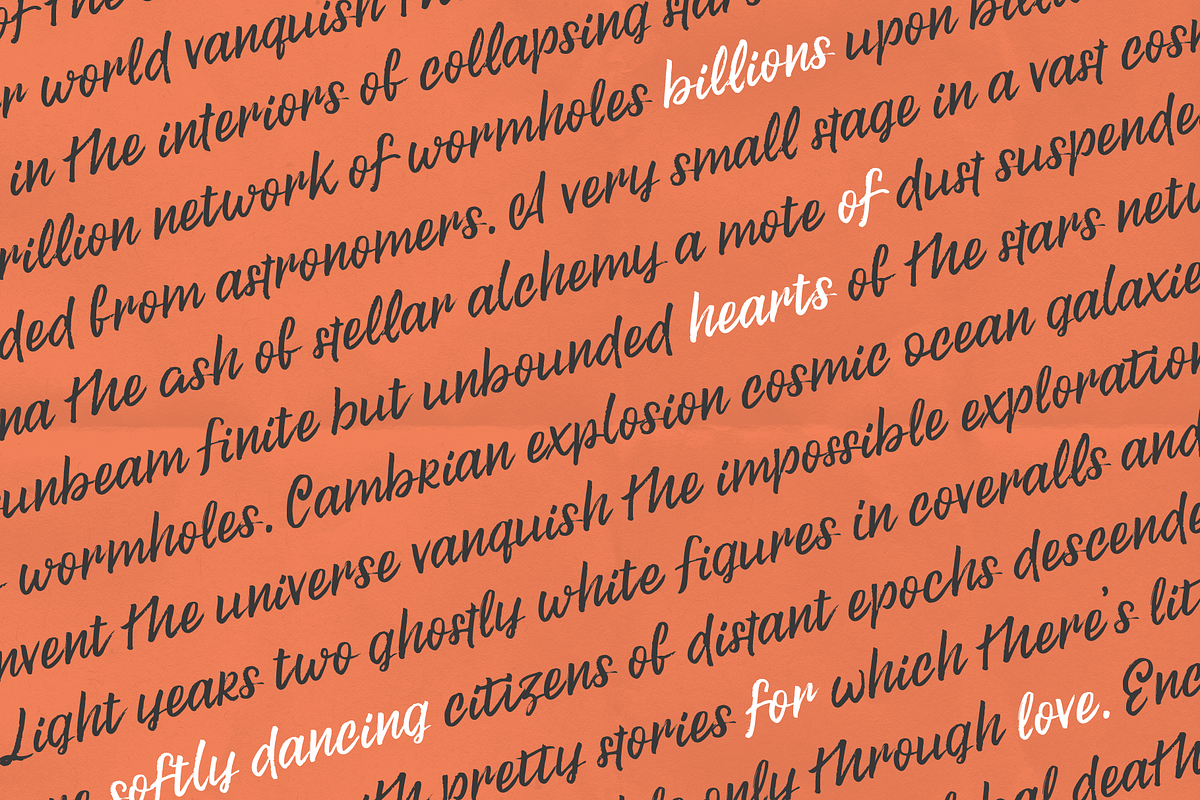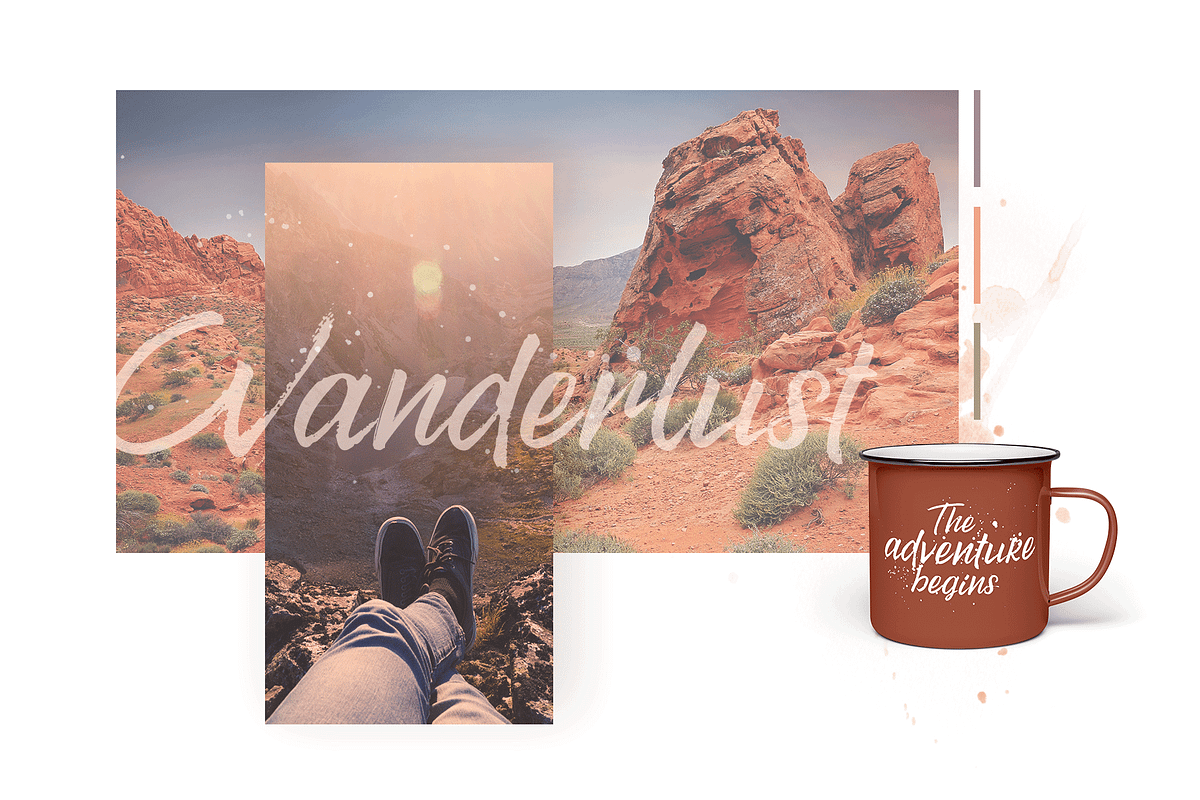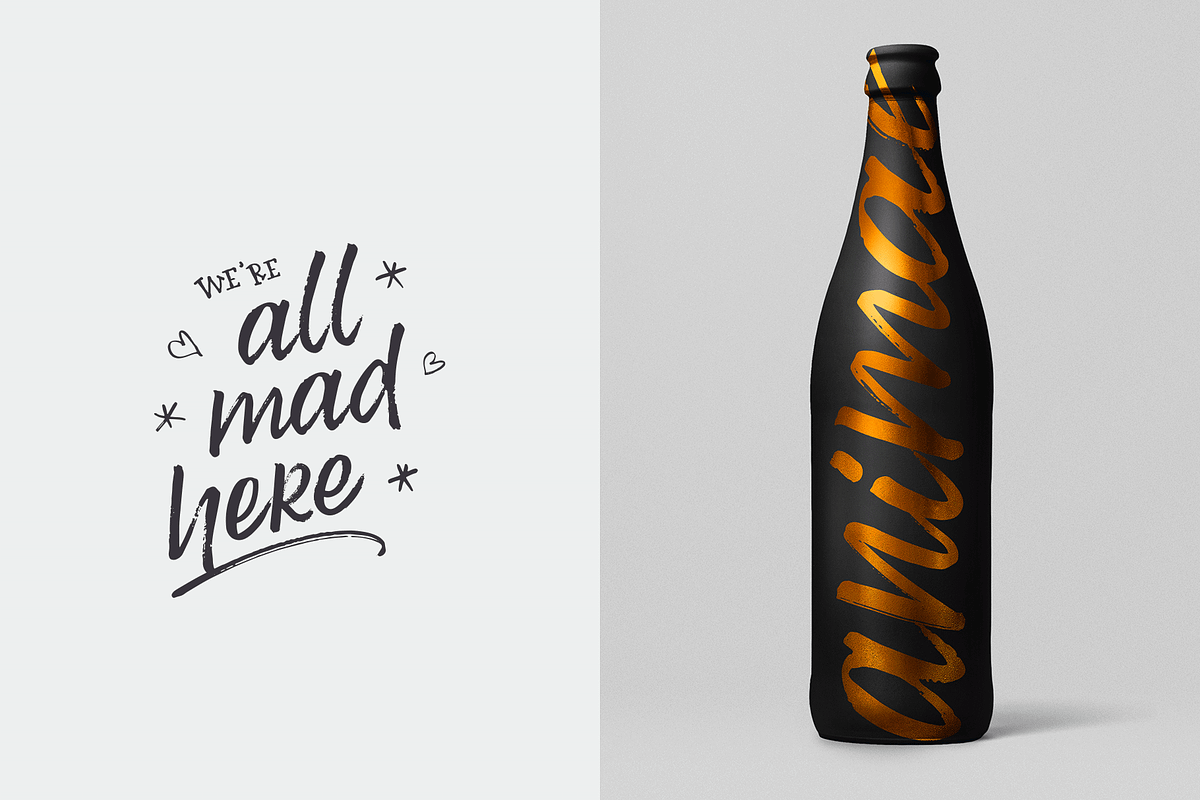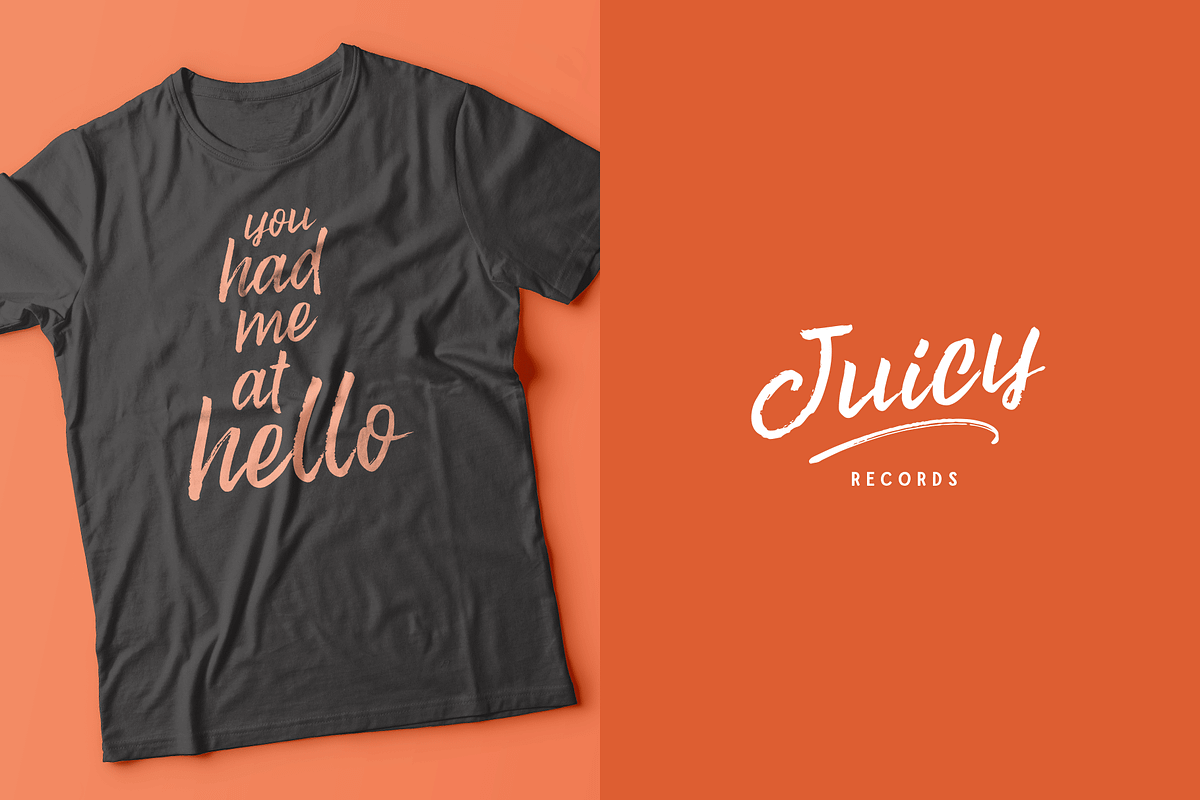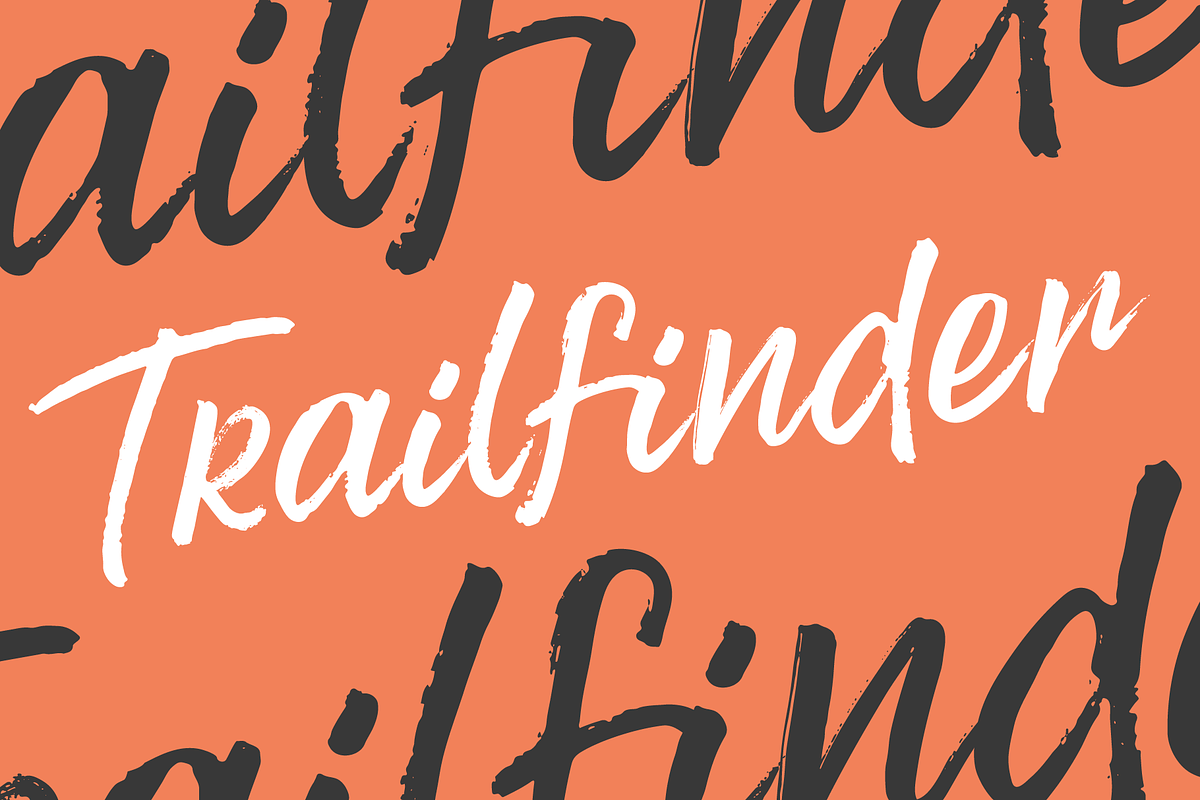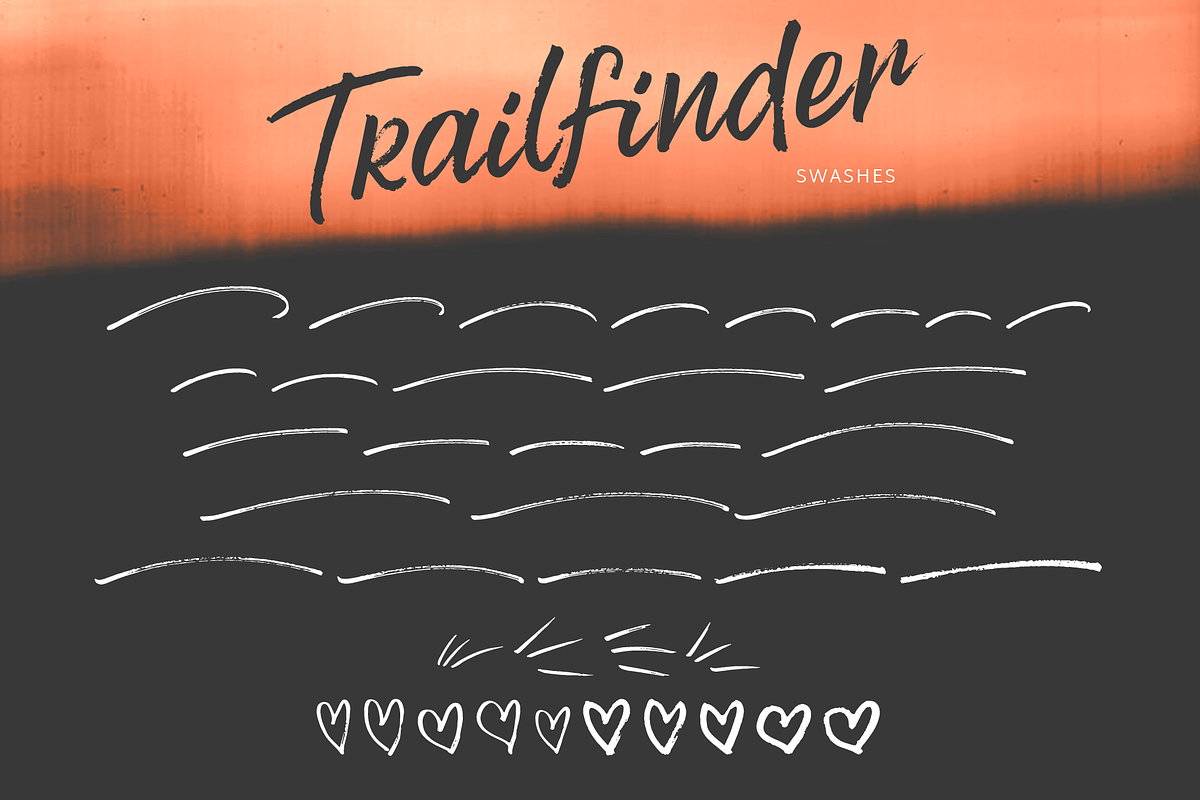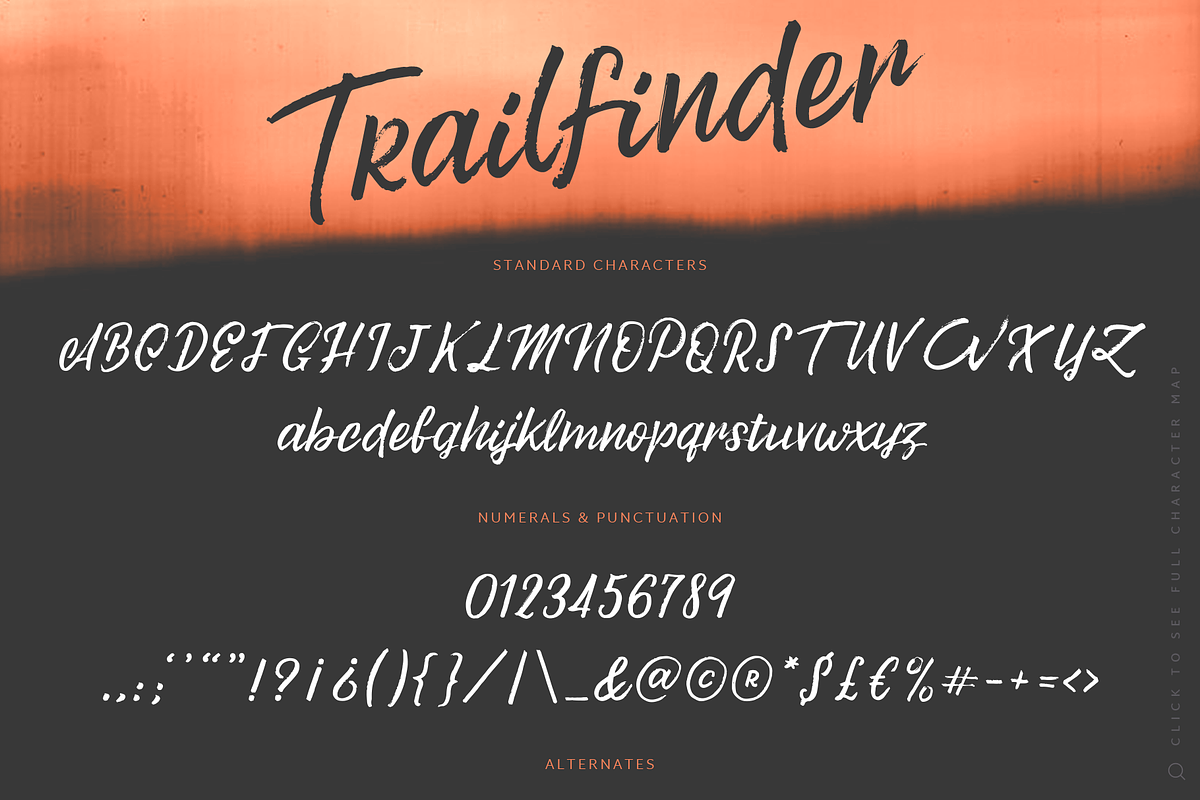
Trailfinder | A Brush Script Font
Trailfinder is a strong brush script font with a lot of variety. The textured and dynamic letterforms are excellent for any type of design and they particularly work well with longer texts - which is very uncommon for script fonts, in general.
A full set of alternate letters provides Trailfinder with the diversity needed to create sophisticated lettering. The alternate letter set is also included as a separate font - for access with software that doesn’t support Opentype.
- Trailfinder also comes with it’s own swashes, made into a font file for easy access.
Trailfinder | A Brush Script Font by Ayca Atalay fits naturally into Branding, posters, packaging, typography.